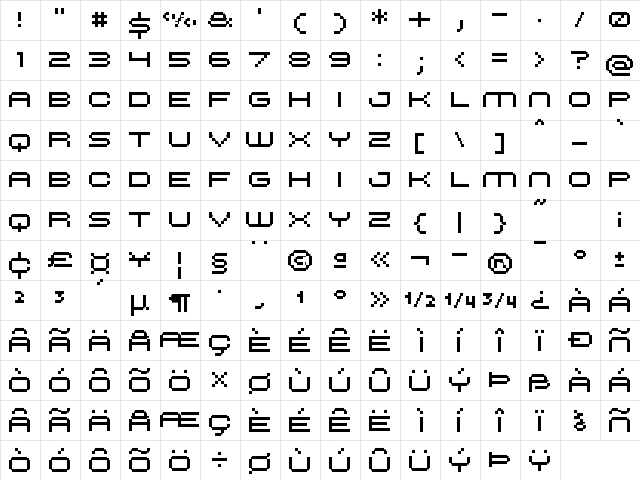
UF Ultra Menu Regular
Design Context for UF Ultra Menu Typeface
UF Ultra Menu is a composed and adaptable typeface that performs quietly and consistently across a wide range of design contexts.